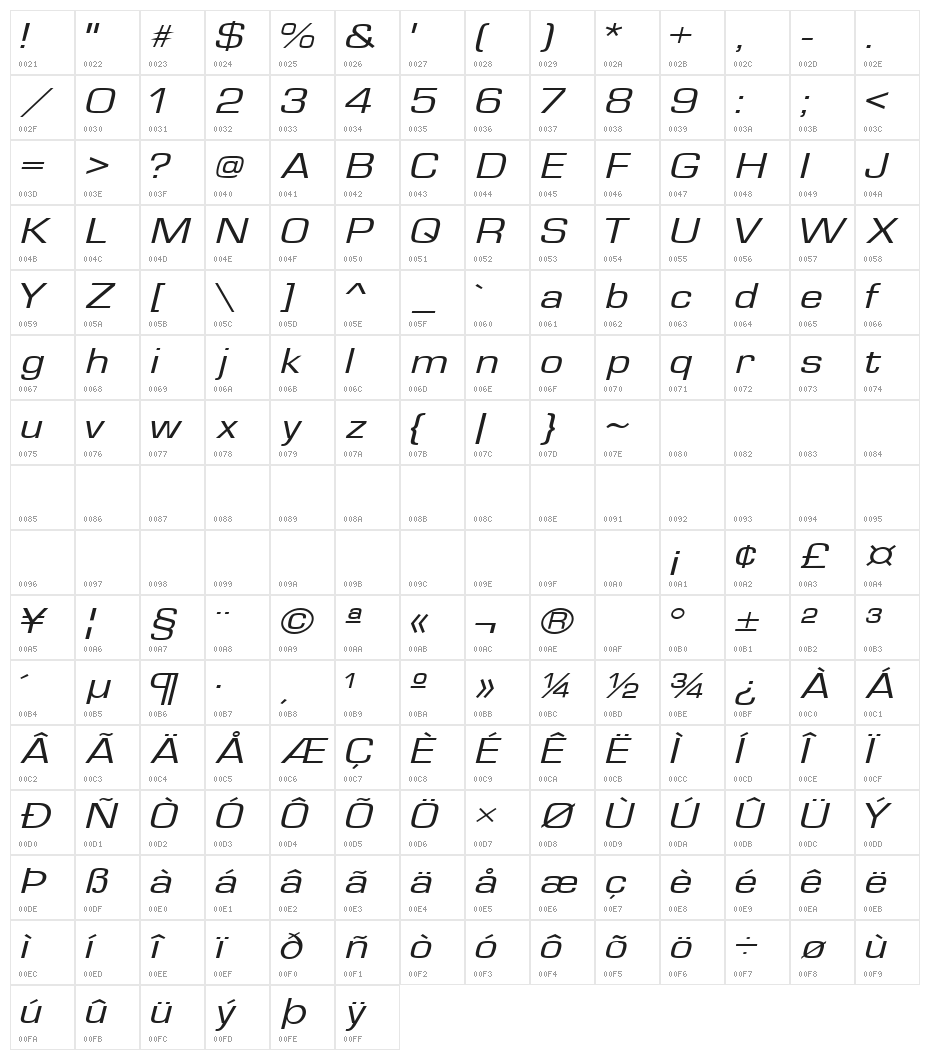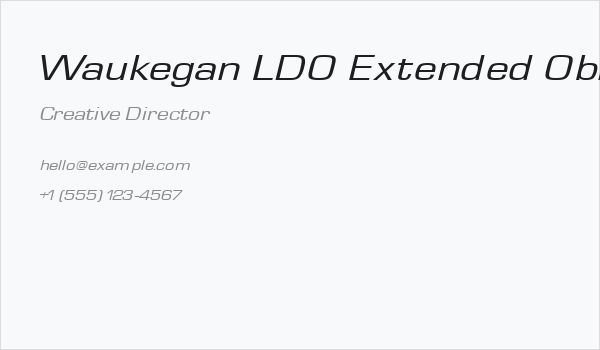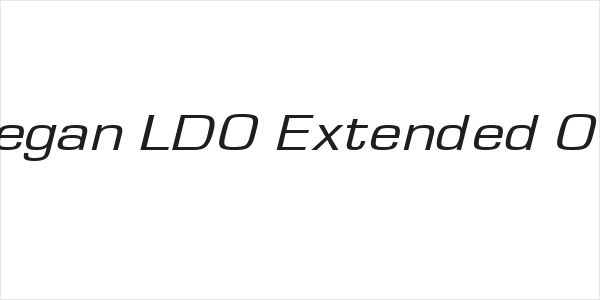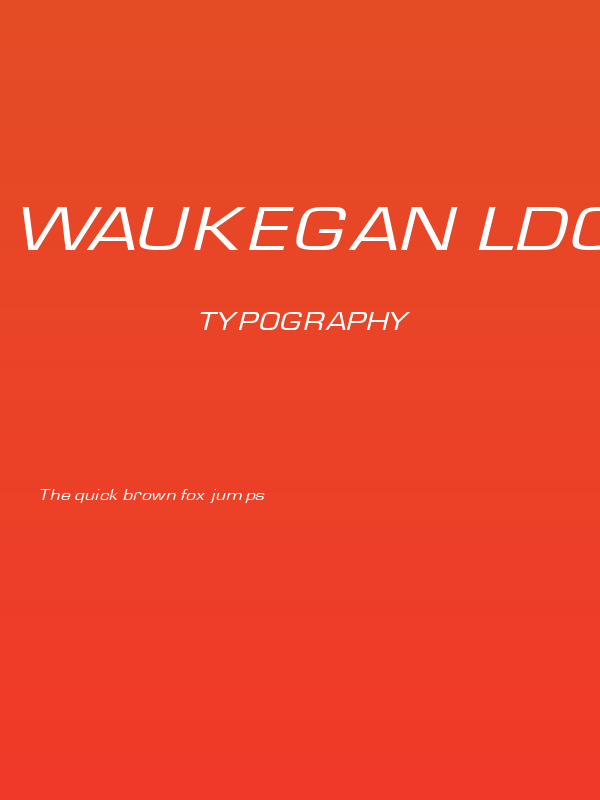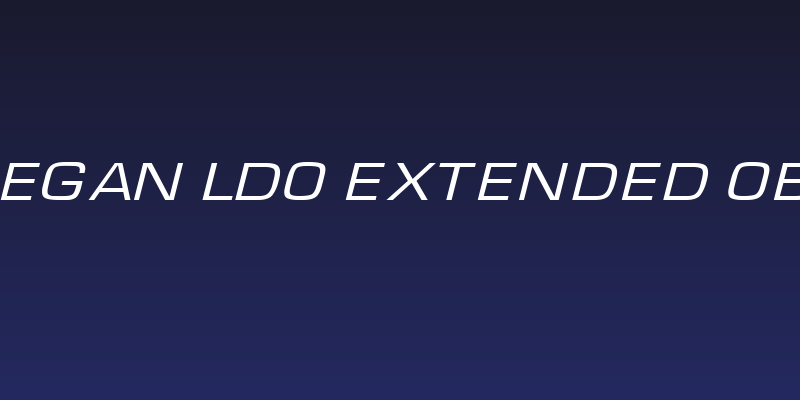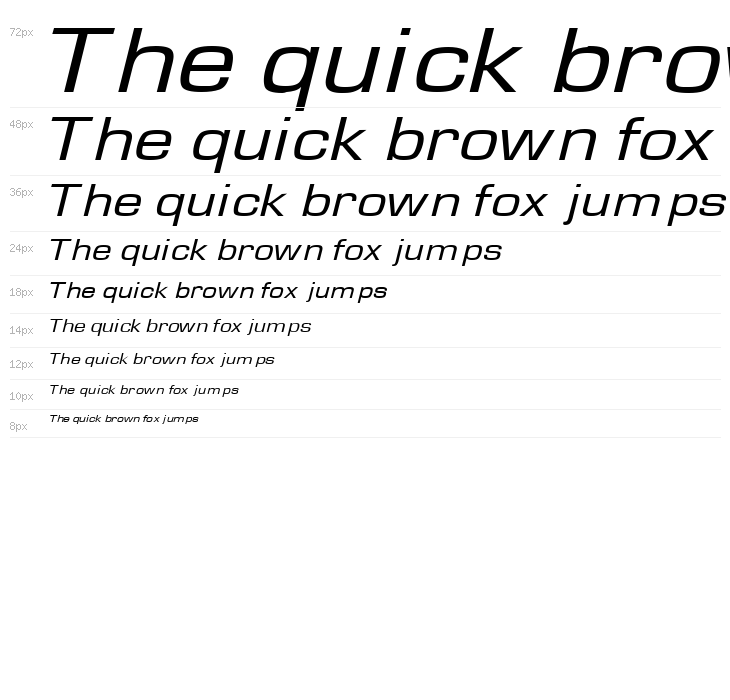
Waukegan LDO Extended Oblique Font
Waukegan LDO Extended Oblique Description
This font exhibits a sleek, modern design with an oblique orientation, giving it a dynamic and forward-leaning appearance. The characters are elongated, contributing to an extended width that enhances readability while maintaining a stylish aesthetic. The strokes are consistent, with a medium contrast that balances elegance and clarity. The uppercase and lowercase letters are well-proportioned, and the numerals are distinct, ensuring legibility across various applications. The special characters are crafted with precision, aligning seamlessly with the overall design. This font's contemporary style makes it suitable for a wide range of creative projects.
| Use Case | Headlines, Logos, Digital interfaces |
| Proposed Projects | Ideal for branding, advertising, and editorial design, as well as digital interfaces and signage. |